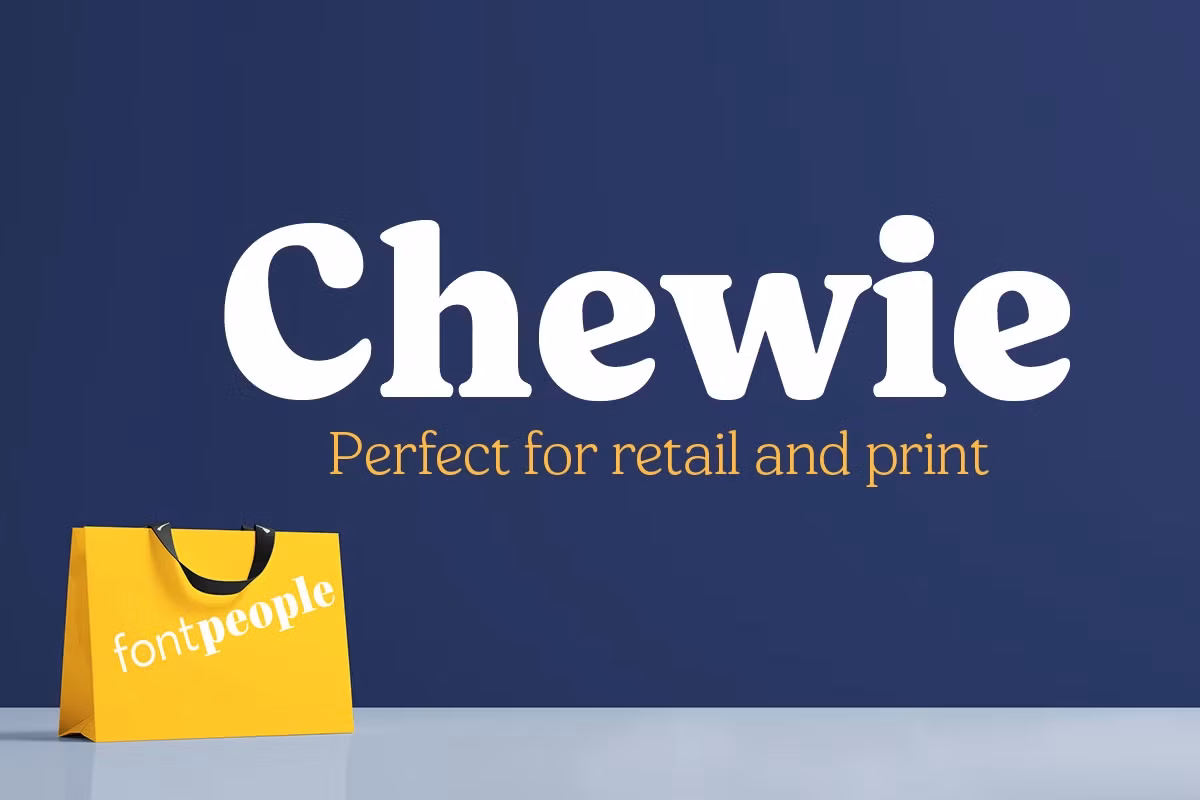
Chewie Font Family Free Download is a playful and versatile typeface family that includes multiple styles, perfect for a wide range of creative projects. With its bold, round shapes and friendly appeal, this font family is ideal for projects that need a fun, whimsical touch, such as children's books, branding, posters, social media graphics, and more.
Chewie combines modern and retro design elements, making it suitable for both casual and professional designs. Whether you’re crafting a logo, designing an event flyer, or creating vibrant marketing materials, Chewie brings personality and readability to your typography.